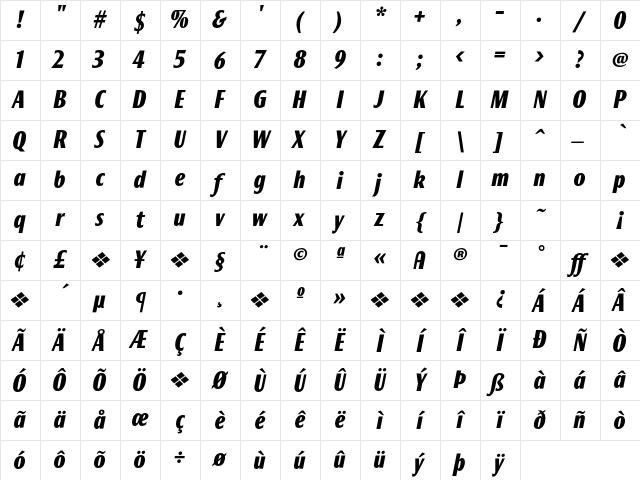
Roxy BlackItalic
Style: BlackItalic
Roxy Family
Roxy BlackItalic
Design Context for Roxy
Roxy is a composed and adaptable typeface that performs quietly and consistently across a wide range of design contexts. The slanted form adds forward momentum and visual energy.